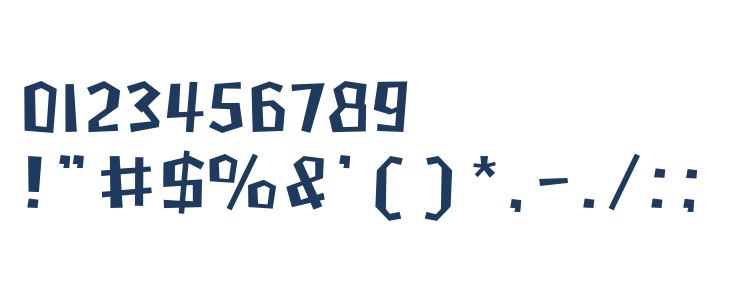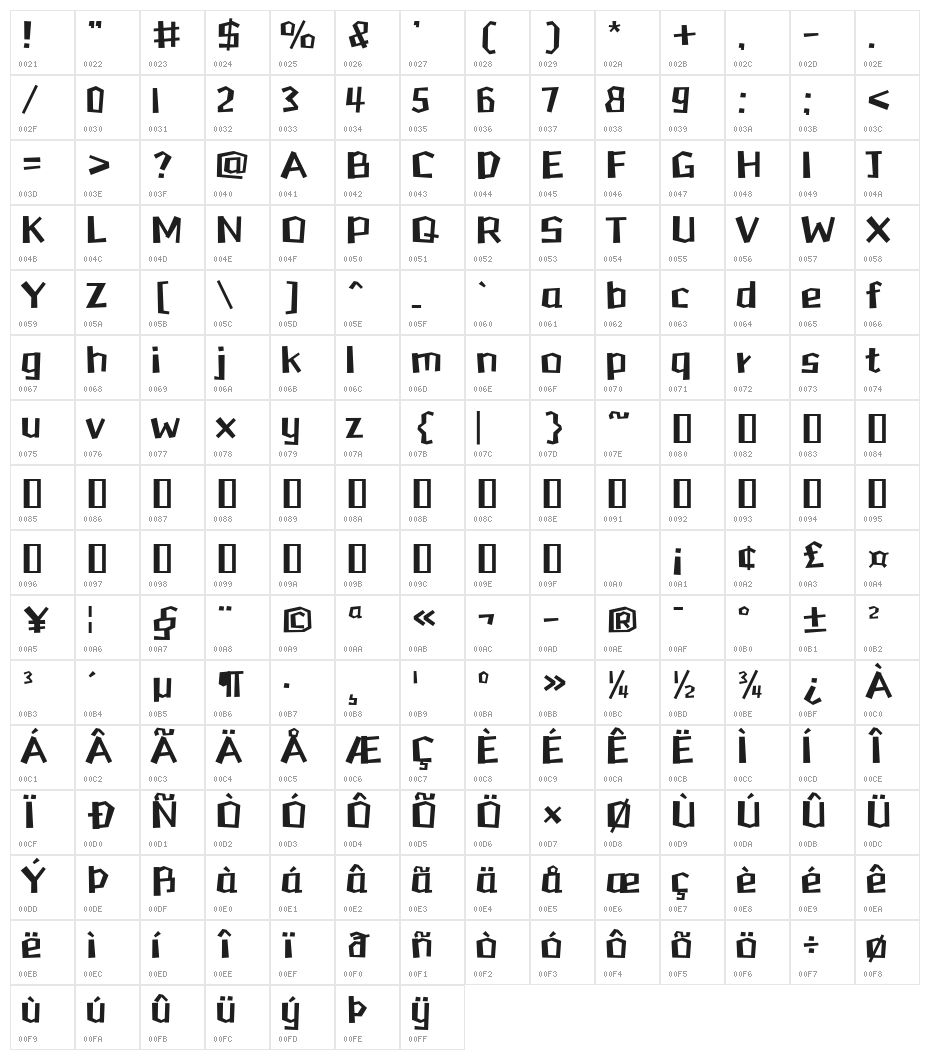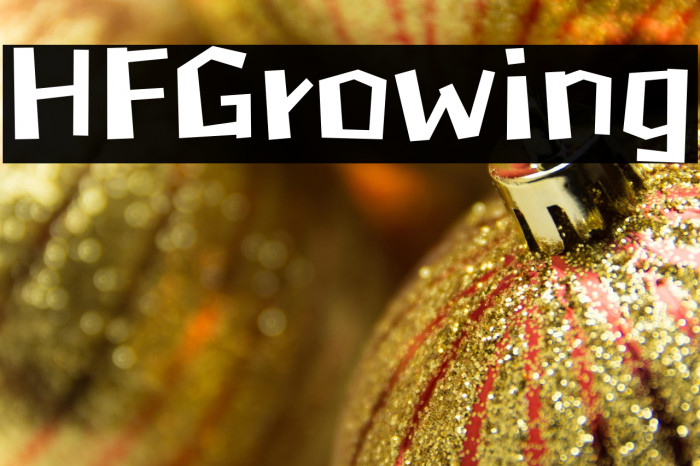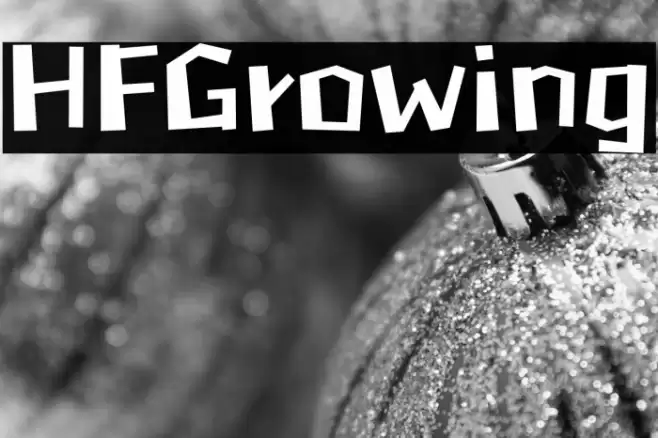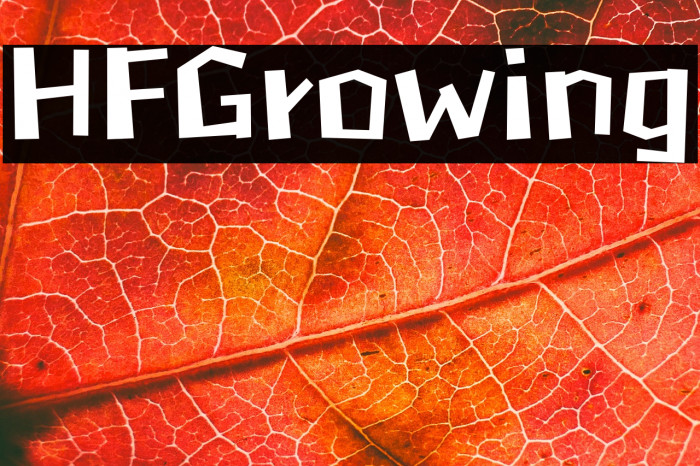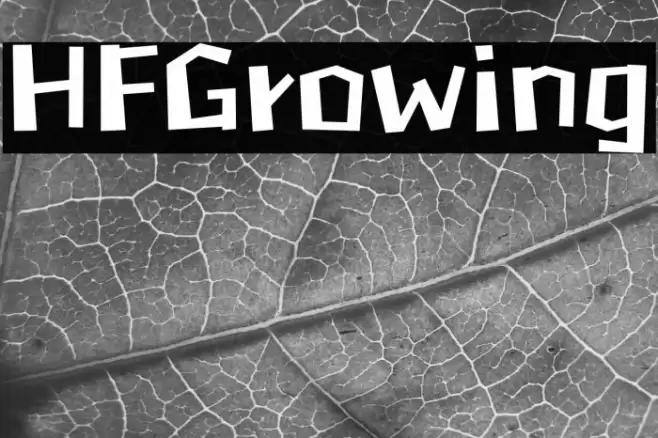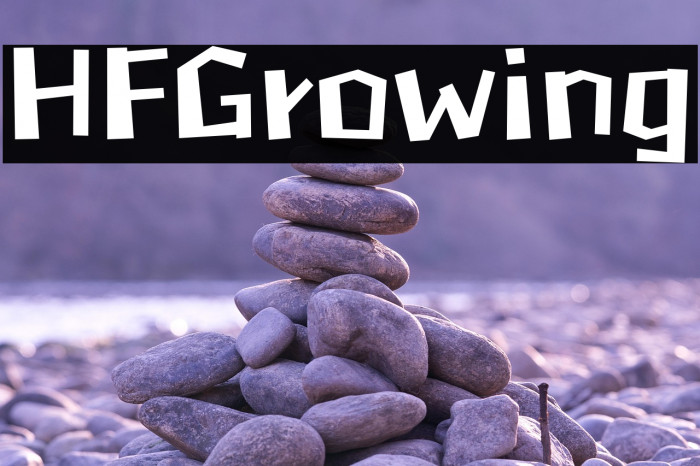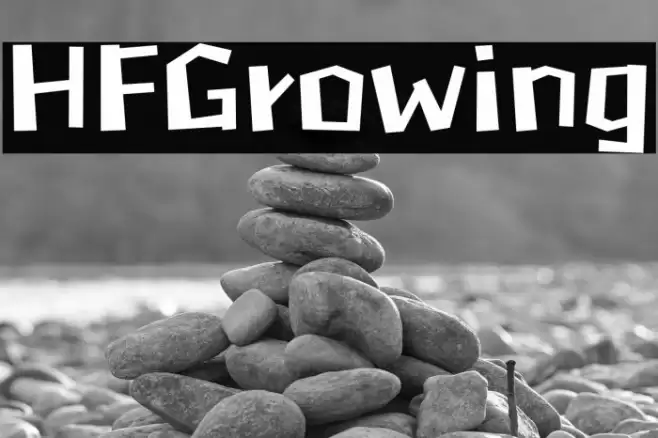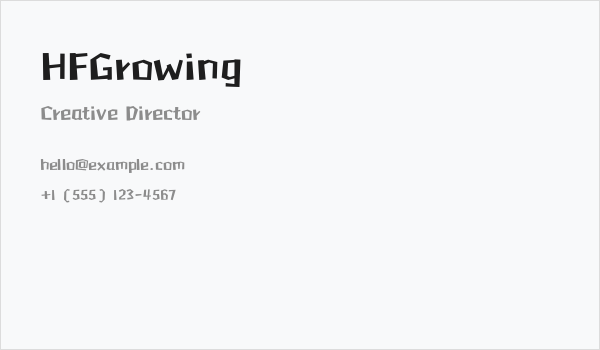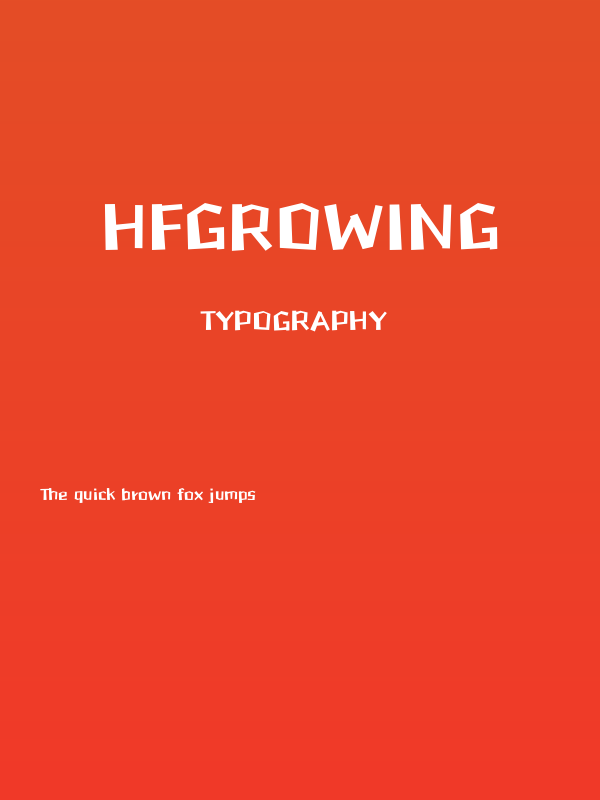
HFGrowing Font
HFGrowing Description
This font features a bold, angular design with a distinct geometric style. Each character is crafted with sharp edges and irregular shapes, giving it a unique, edgy appearance. The uppercase letters are particularly striking, with varying widths and angles that create a dynamic visual impact. The lowercase letters maintain the same angular theme, offering a cohesive look across the alphabet. Numbers and special characters are designed to match the bold, geometric style, ensuring consistency throughout. This font's unconventional design makes it stand out, ideal for projects that require a modern and artistic touch.
| Overall Style | Modern, Edgy |
| Proposed Projects | Ideal for modern art projects, edgy branding, posters, and creative digital designs. |